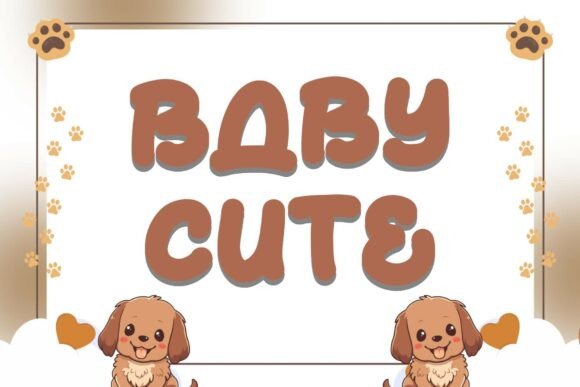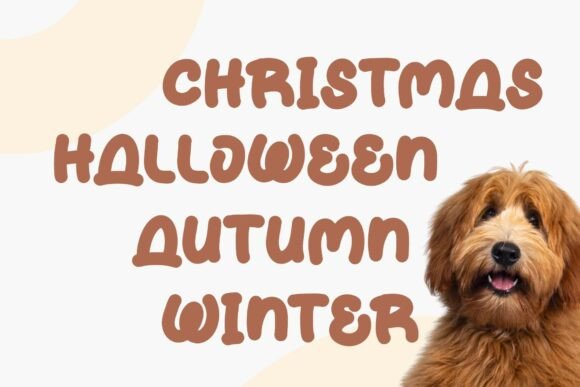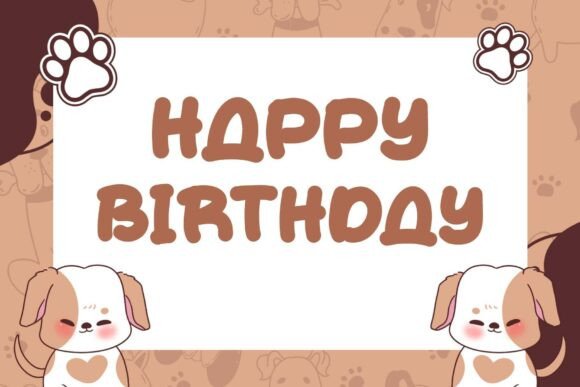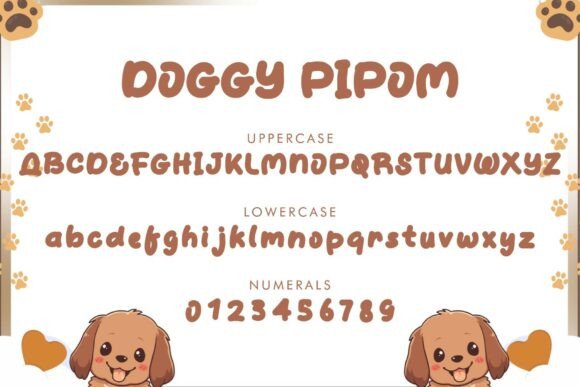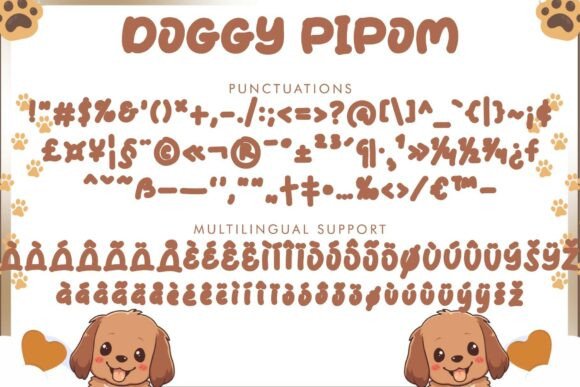
Unleashing the Cutest Font for Your Next Creative Project
Who hasn’t been inspired by a cute doodle or a funny meme on social media? As a designer, you’ve probably found yourself wanting to bring that same level of playfulness and whimsy to your next project. If you’re looking for the perfect font to capture that carefree spirit, look no further than the Doggy Pipom Font.
This adorable display font is designed to bring a smile to your audience’s faces, featuring uppercase and lowercase letters, numerals, punctuations, and even multilingual support. With its endless possibilities for use in comics, animations, and branding, the Doggy Pipom Font is a valuable addition to any designer’s toolkit.
- Unique Characteristics: Quirky, playful, and expressive design with rounded edges and bold lines, perfect for creative and whimsical projects
Designer Review: Doggy Pipom Font
First impressions are everything, and when I opened the Doggy Pipom Font, I was immediately charmed by its playful, hand-drawn aesthetic ✨. The font has a quirky, homemade feel that’s perfect for adding a touch of whimsy to children’s books, pet-related projects, or even advertisements for fun restaurants.
One of the standout features of Doggy Pipom is its versatility. It comes in a range of weights, from light to bold, making it easy to use in a variety of contexts ✨. The font also includes a range of special characters, including emojis and swashes, which add an extra layer of personality to your designs.
While Doggy Pipom is a great choice for many projects, it’s not without its limitations ⚠️. The font can be a bit too ornate for some designs, and the varying line widths can make it difficult to use in situations where precision is key. Additionally, some of the characters may not be as legible at small font sizes.
- Not suitable for formal or professional designs
- May be difficult to use in small font sizes
- Can be too ornate for some designs
In conclusion, Doggy Pipom is a fun and playful font that’s perfect for adding a touch of personality to your designs ✨. While it may have some limitations, it’s a great choice for projects where you want to add a bit of whimsy and charm. Just be sure to use it in the right context, and you’ll be sure to get the most out of this delightful font.
Getting the Most Out of Doggy Pipom Font
To get the most out of Doggy Pipom Font, use it in creative ways, such as:
- Casual logos and branding
- Handwritten-style invitations
Common use cases for Doggy Pipom Font include:
- Children’s products and toys
- Family and pet-related businesses
Alternatives to Doggy Pipom Font
Pacifico is a beautiful, elegant script font perfect for creating a sophisticated and luxurious feel. It’s ideal for use in logos, branding, and marketing materials where a high-end look is desired.
Compared to Doggy Pipom Font, Pacifico has a more refined and polished look, making it suitable for high-end designs. While Doggy Pipom Font has a playful and whimsical feel, Pacifico is more formal and sophisticated.
Great Vibes is a modern, cursive font that’s perfect for creating a fun and energetic atmosphere. It’s ideal for use in advertisements, social media graphics, and other designs where a lively feel is desired.
Compared to Doggy Pipom Font, Great Vibes has a more energetic and playful feel, making it suitable for designs that require a lot of movement and energy. While Doggy Pipom Font has a quirky and offbeat feel, Great Vibes is more modern and trendy.
Carolyna Pro is a elegant and sophisticated script font that’s perfect for creating a luxurious and high-end feel. It’s ideal for use in logos, branding, and marketing materials where a refined and polished look is desired.
Compared to Doggy Pipom Font, Carolyna Pro has a more refined and polished look, making it suitable for high-end designs. While Doggy Pipom Font has a playful and whimsical feel, Carolyna Pro is more formal and sophisticated.